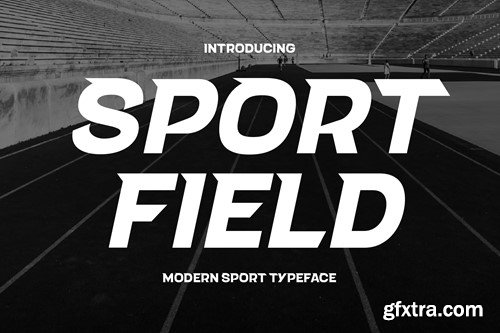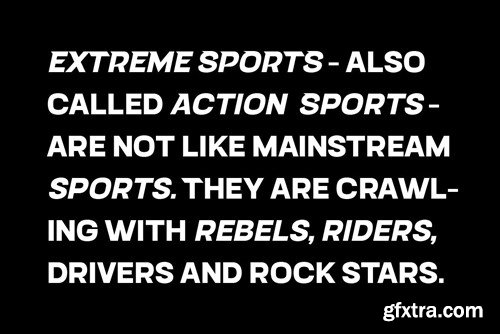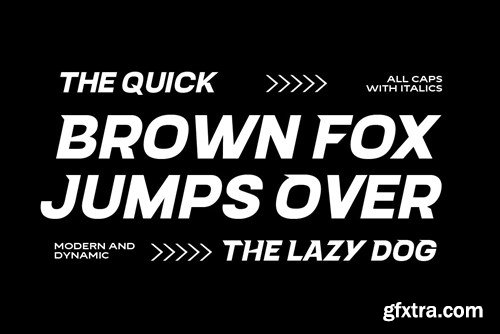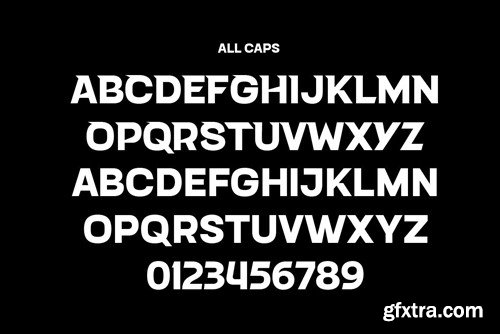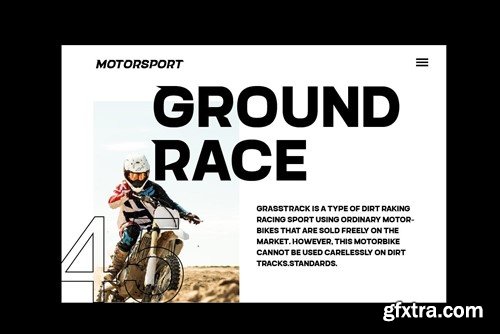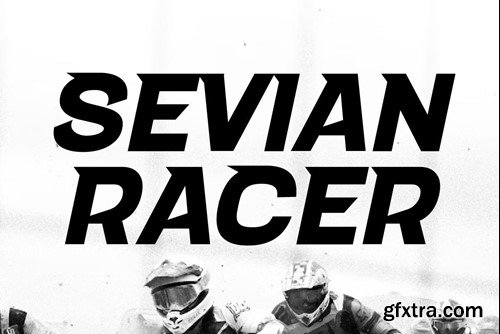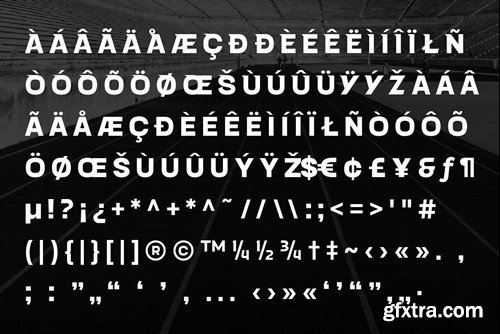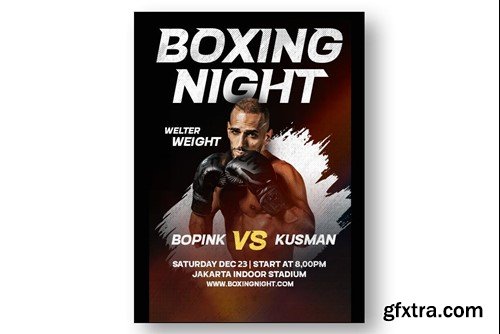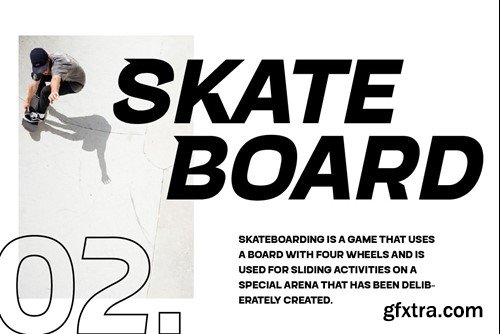
Sport Field Modern Fonts
Sport Field Typeface is a dynamic and modern font created specifically for sports-related designs. With its clean lines and bold character, it exudes power and energy, making it an ideal choice for headlines, team logos and sporting event promotions. This font's contemporary aesthetic adds a bold touch to any project, capturing the essence of athleticism with style and impact. Available in 2 styles Upright and Italic, all uppercase letters. Files Included